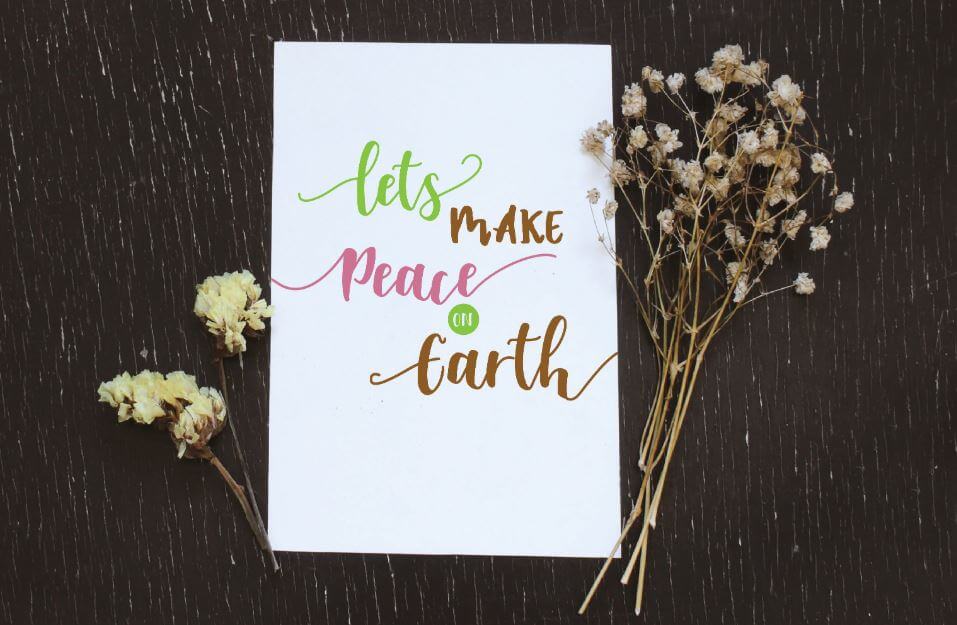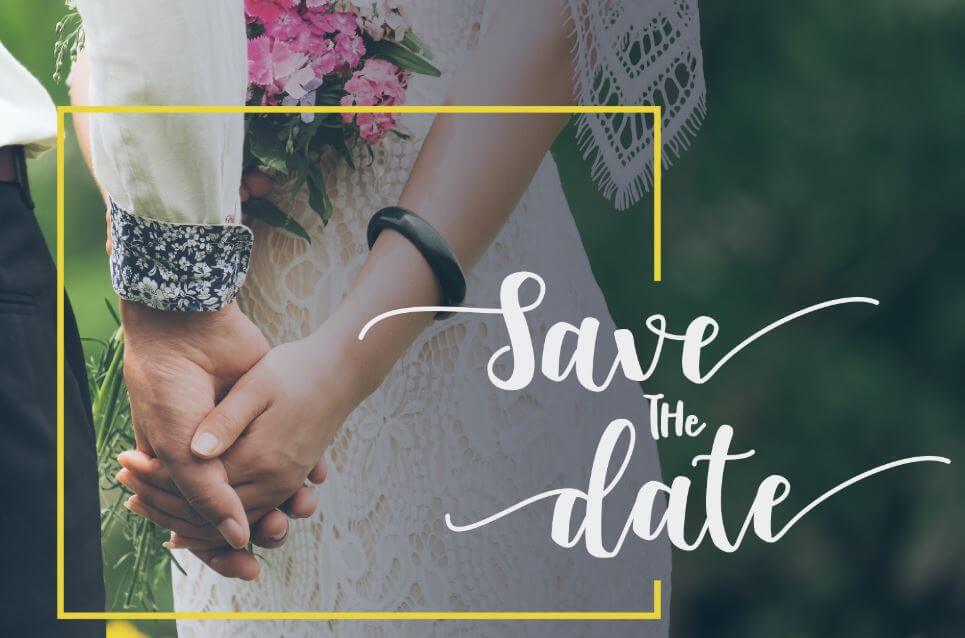
Shella Script Font
Here we are introducing you a new font style which is shella script font. It is a new and great style of the typeface. It is a shella font trio which is very popular among all the fonts and typeface of calligraphy in different styles. This font is free for all.
You can use this font for your all documents and other projects of typography. In canting display font all the characters are new and stylish and unique so here are also all the alphabets are new and unique so you can use it. Shella Script Font Free The style of shella script font is very nice and beautiful. You can never imagine its style and great characters in your paintings and art and craft designs.
In paintings, these fonts mostly use to make the painting looks unique. In paintings, these fonts are salmela and greatly impressed by other beautiful characters. This font are used for different purposes and designs that you can allow to write it in your paintings and beautiful designing works that are very nice.